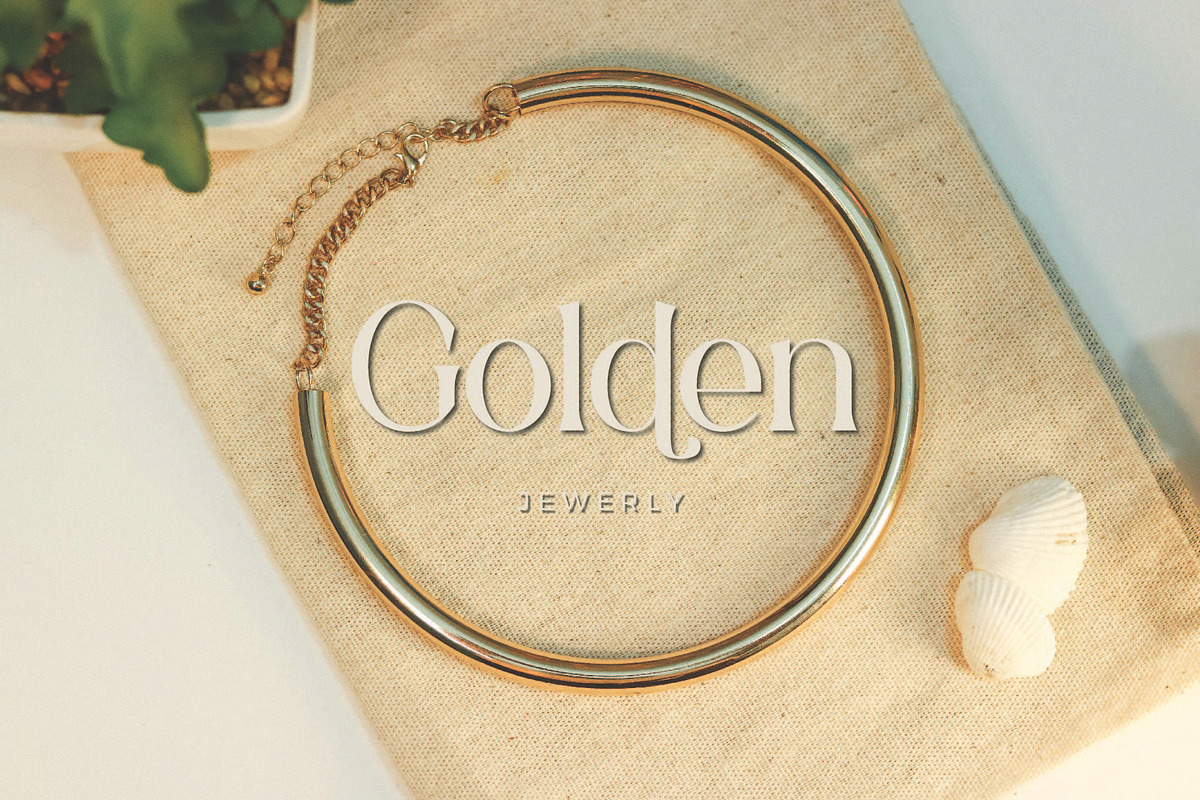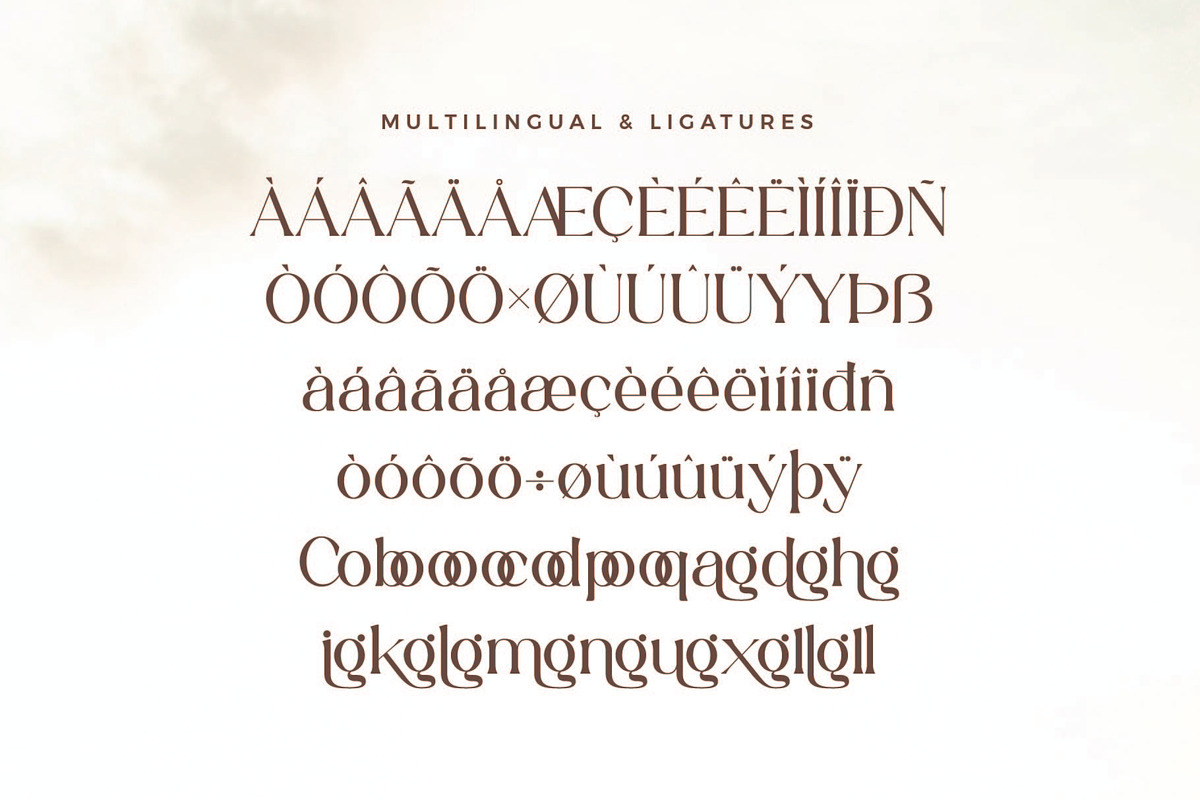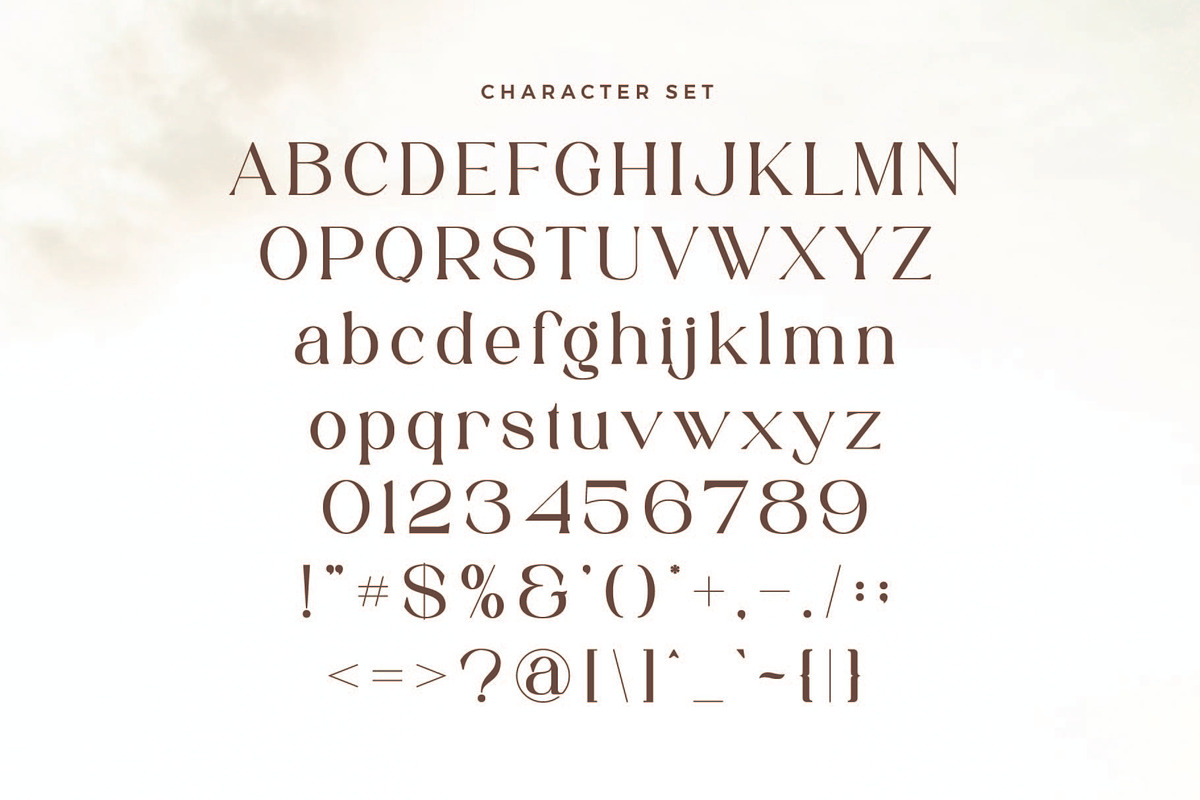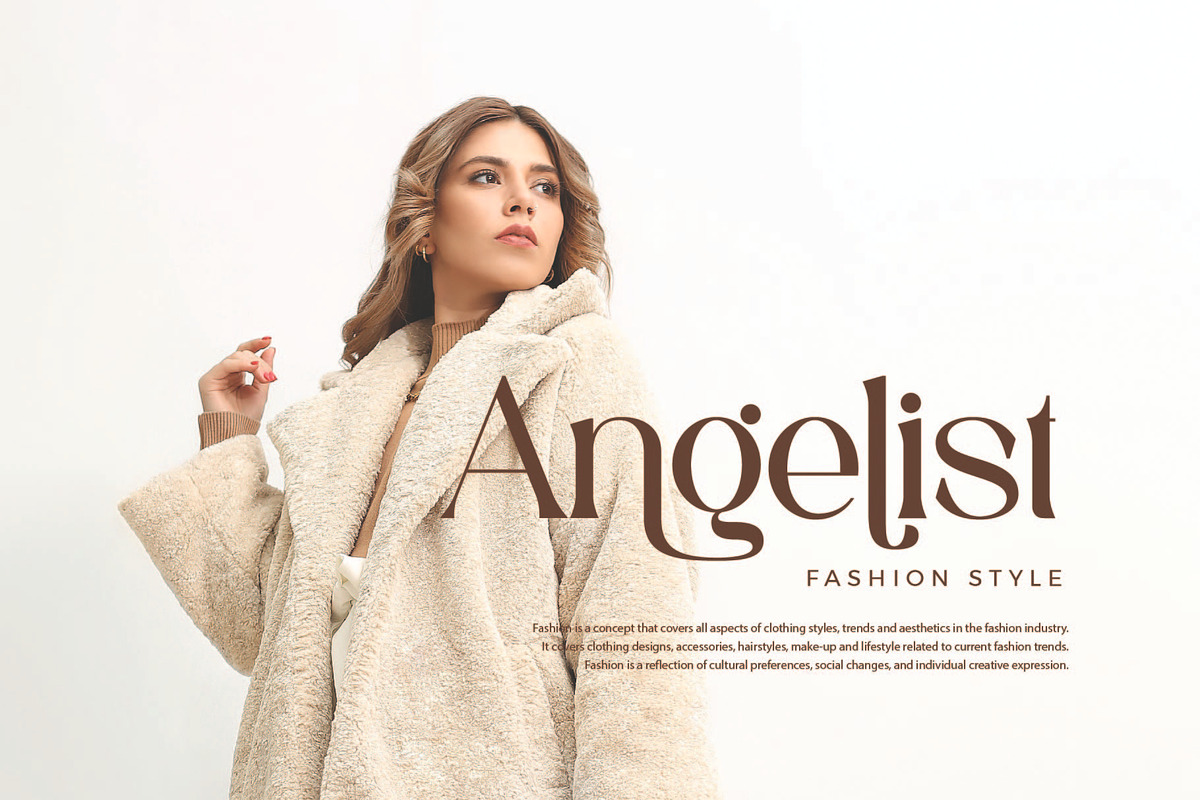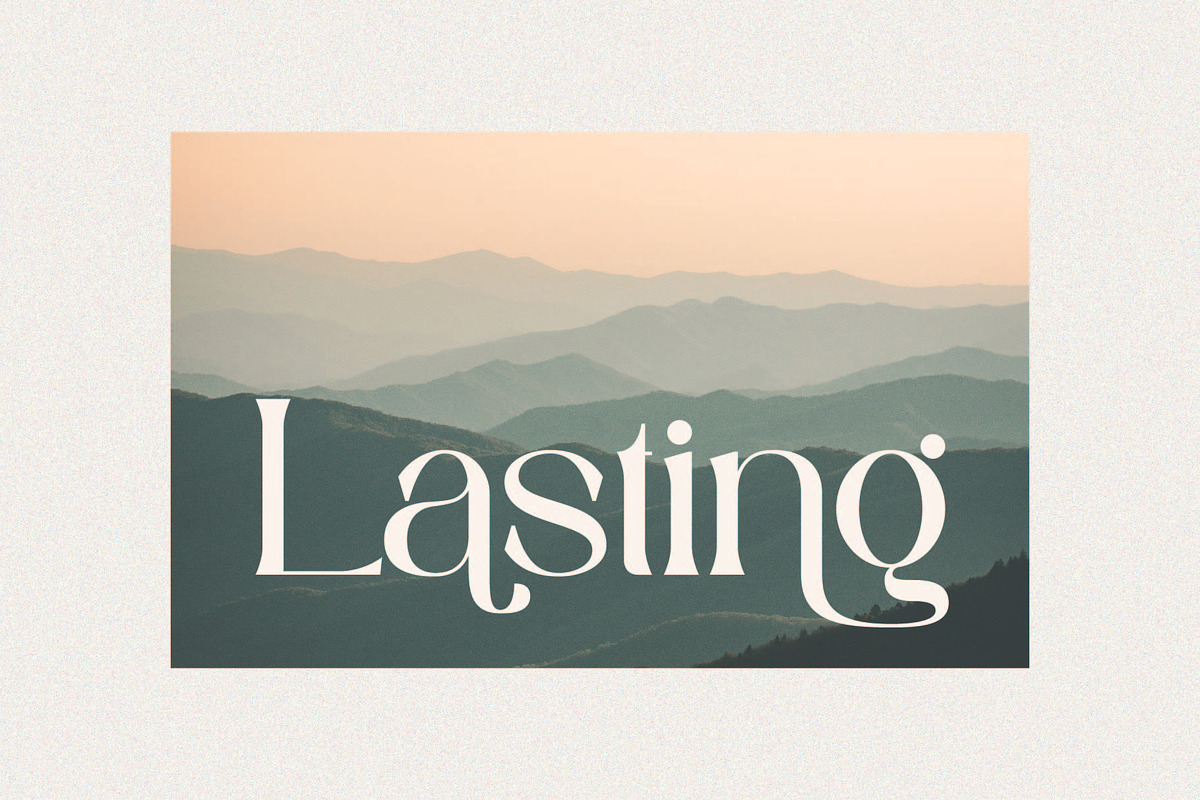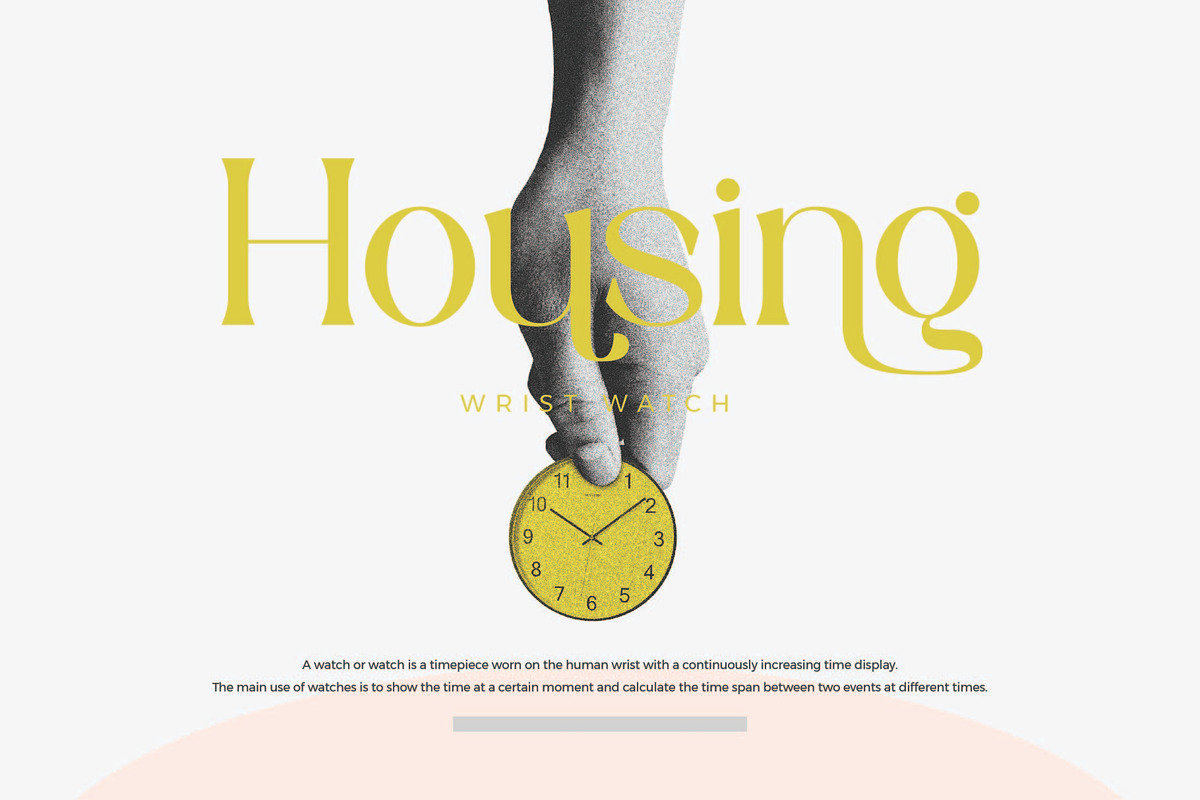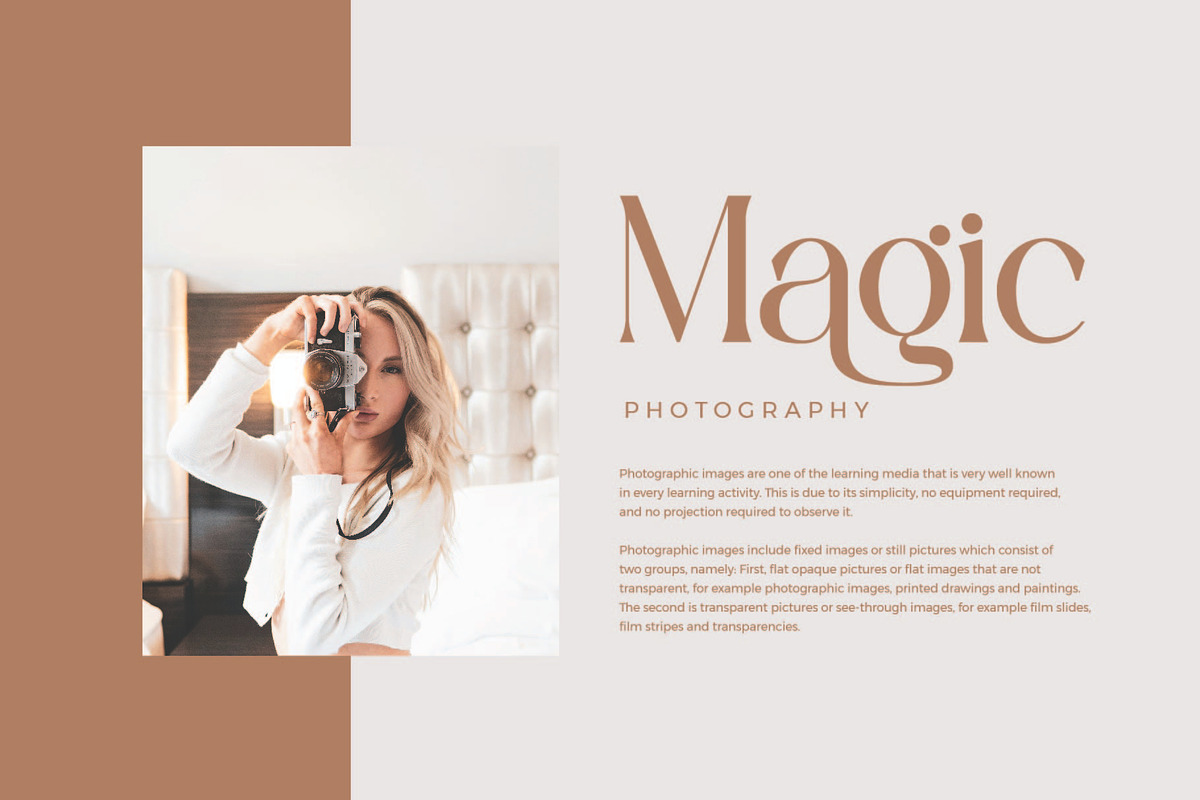
Collgan - Modern Serif Font
Collgan Stylish Ligature Typeface, inspired by the famous minimalist logo perfect for the purposes of designing templates, brochures, videos, advertising branding, logos and more.
Collgan - Modern Serif Font by AqeelArt fits naturally into Branding, posters, packaging, typography.